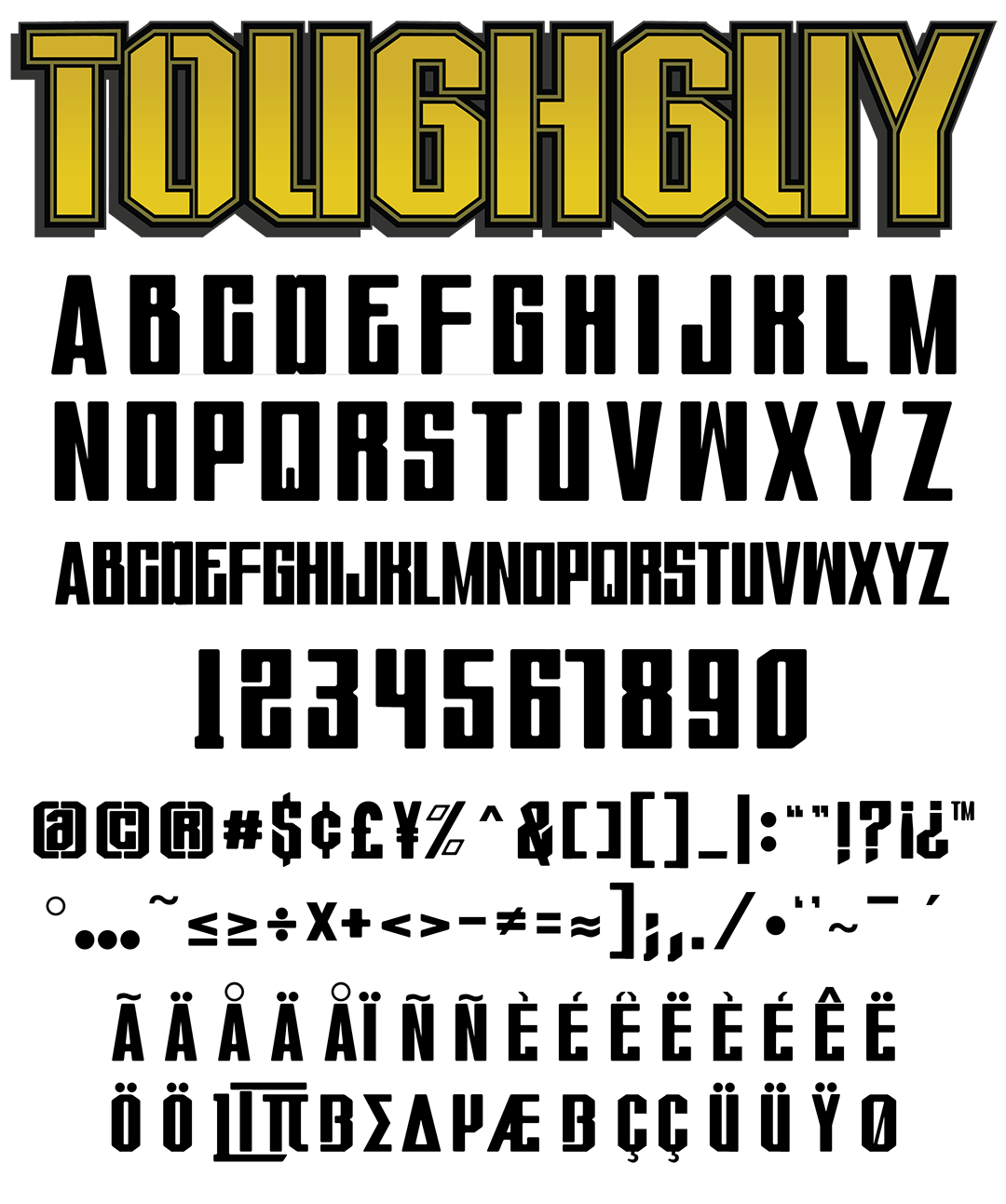
+23 Tough Fonts Ideas. Tough guy jnl contains 1 styles and family package options. Tough is a simple and a bit spooky display font.
Tough is a simple and a bit spooky display font. Tough guy jnl font family was designed by jeff levine and published by jeff levine. Download the tough art font by idebareng.
The font is perfect for book cover designs and creative art. Complete family of 7 fonts: Download the tough art font by idebareng.
Tough Font Tough Is A Beautiful And Cool Serif Font With A Unique Feel!
Fall in love with its delicate charm. You can install the tough font on any operating system. Toughguy font family was designed by matthew napolitano and published by graffiti fonts.